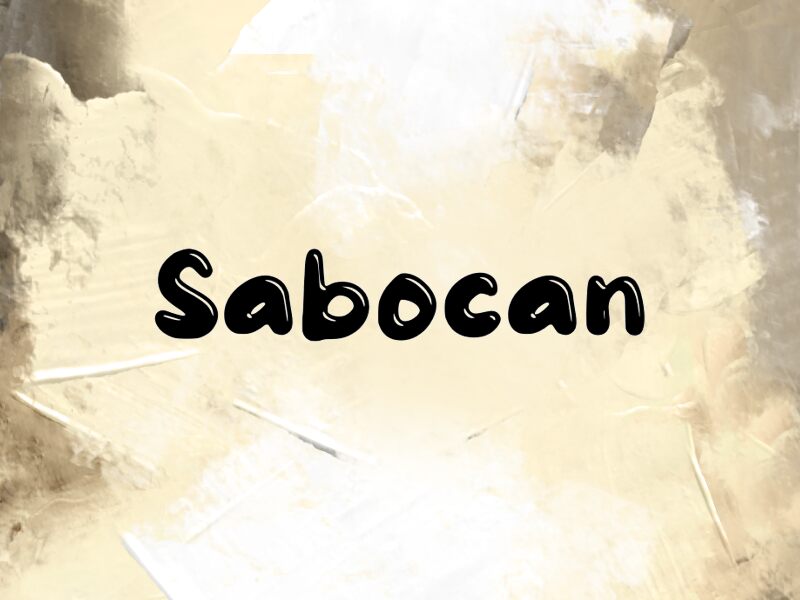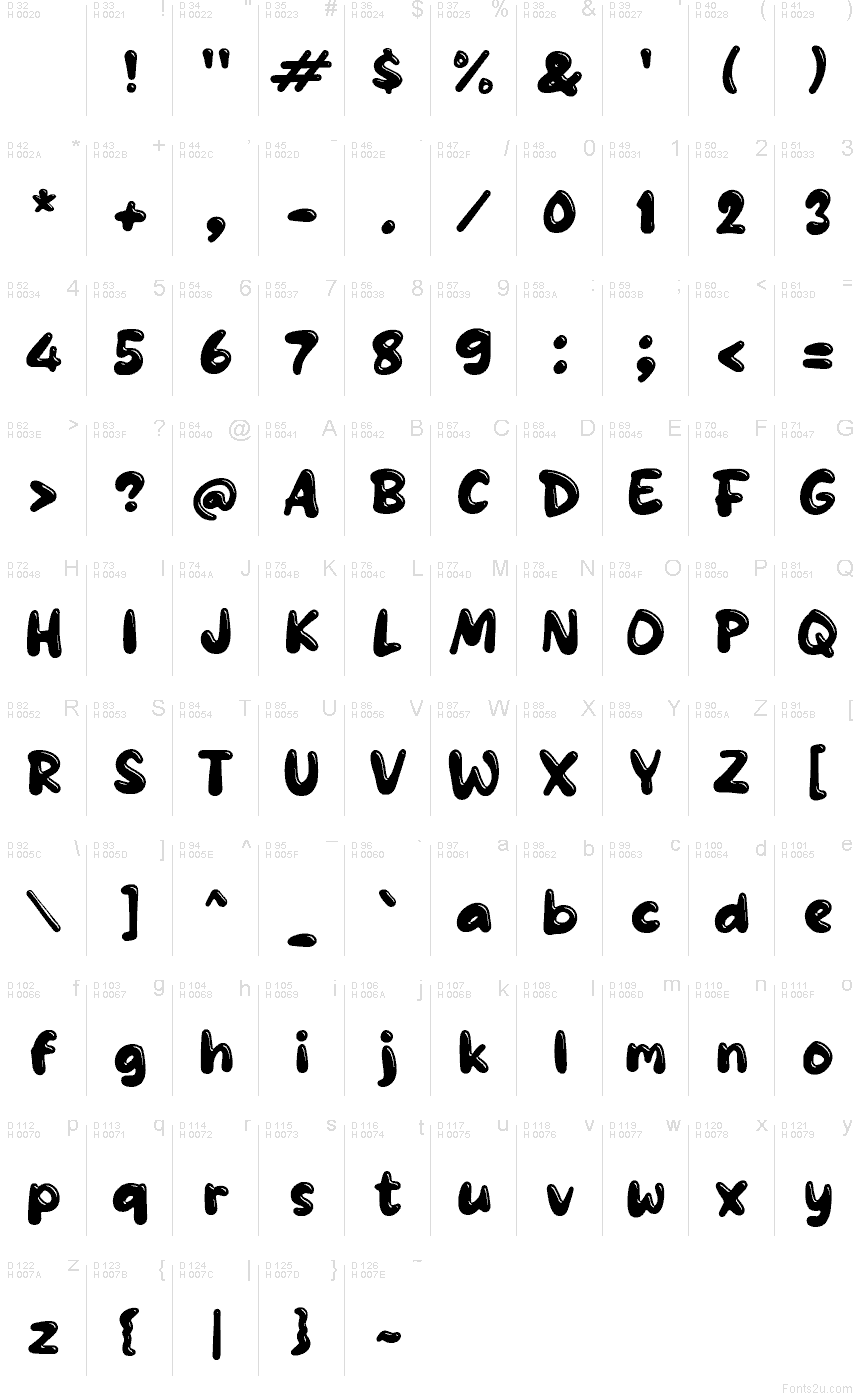
Sabocan
Sabocan font by wep is a free cartoon display typeface that looks like it’s been piped out of a thick, glossy marker. Each letter is soft, rounded, and a little wobbly, with inky pools of black that feel almost rubbery to the touch. The shapes bounce along the line with a casual rhythm that reads as friendly and irreverent rather than messy, giving everything you set in Sabocan an instant, hand-drawn personality.
Using Sabocan, this free font shines on kids’ book covers, birthday invitations, casual game titles, snack or candy packaging, playful logos, and YouTube or Twitch graphics. The chunky forms hold up well at larger sizes where the shiny, blobby texture can really stand out. For longer supporting text, pair it with a clean rounded sans serif and let Sabocan handle the loud, attention-grabbing words or short headlines.